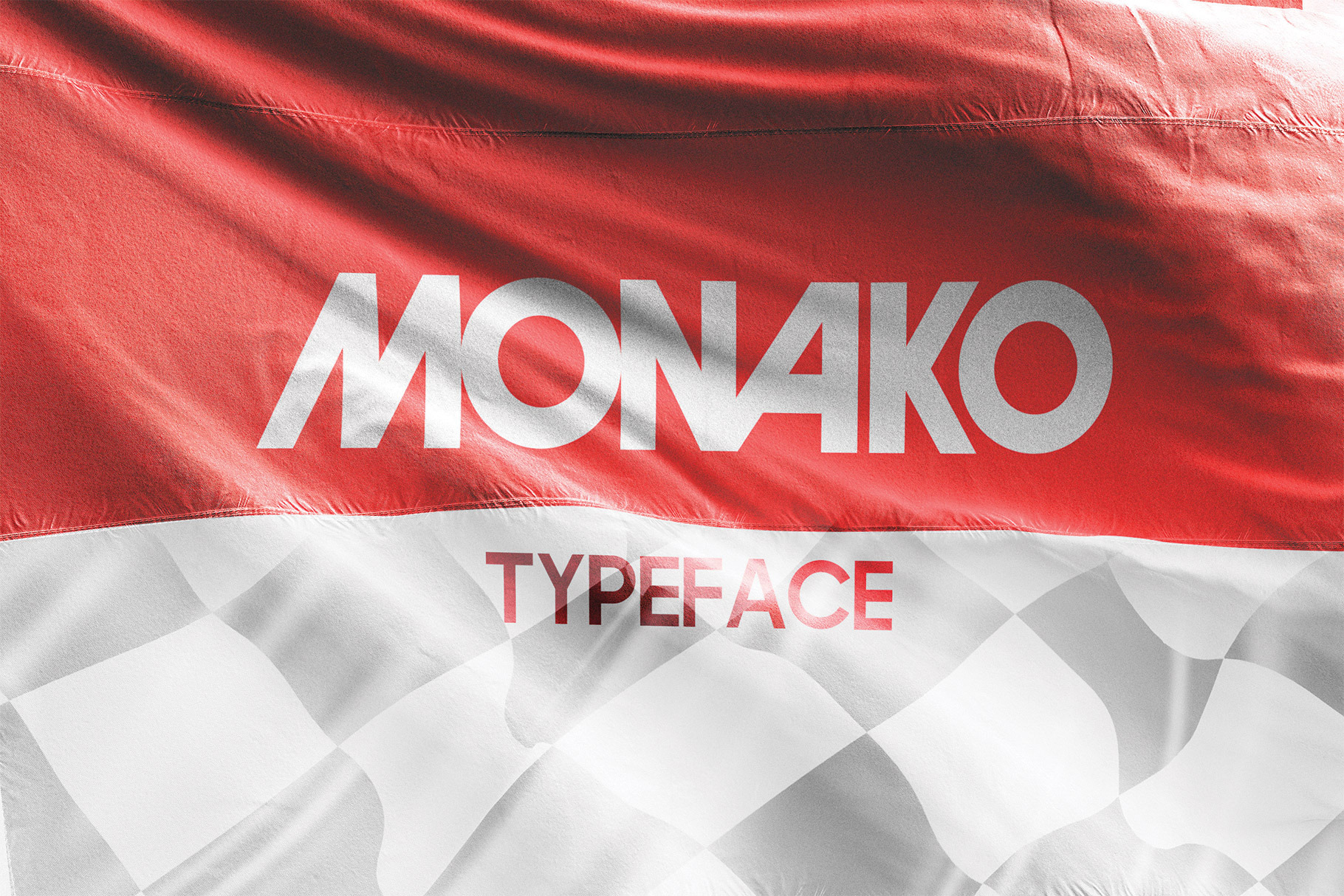
Monako Font
Monako font is inspired by vintage motorsport posters from the 70's. This typeface is offered in 3 Weights - Regular, Semibold & Bold. Each weight comes in uppercase, lowercase and includes a standard character set. You will also notice additional Special uppercase characters for the letters "A,M,V & W".